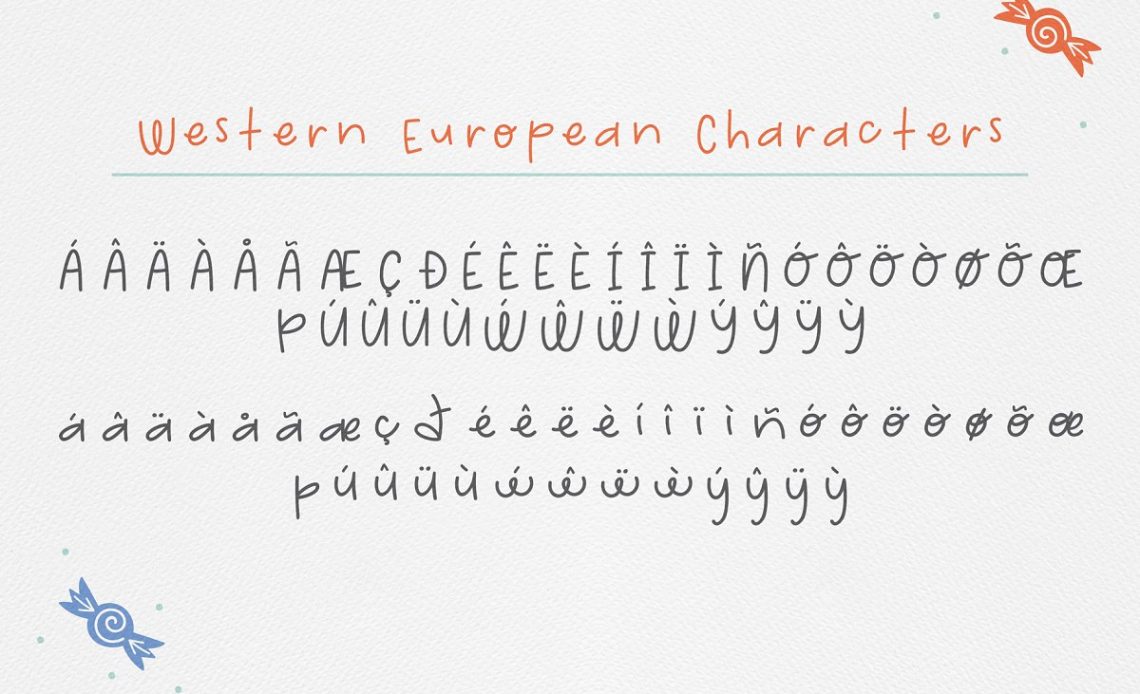
Are you looking for the perfect font to add some fun and playful vibes to your designs? Look no further than Saltwater Taffy Font! Created by the talented Allison Richardson, this hand-drawn typeface is the best font for a fun flyer and is perfect for a variety of projects.
With its versatile letters, Saltwater Taffy Font looks great in ALL CAPS or used regularly in sentence case. Its whimsical design is sure to bring a smile to anyone's face and is perfect for birthday invitations, stationery, kids t-shirt designs, calendars, journals, and more! Whether you're creating designs for a child's birthday party or a fun summer event, this font will add just the right touch.